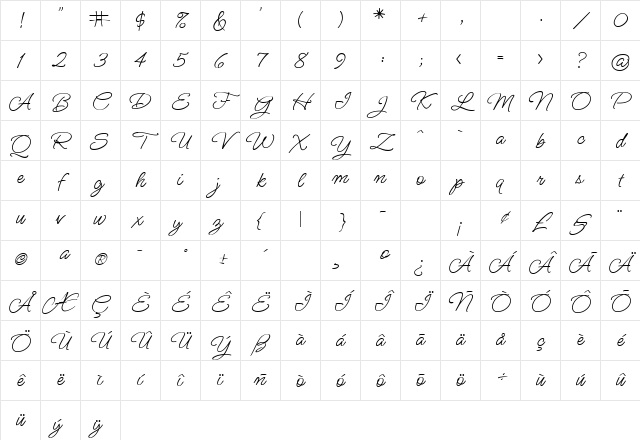
MsMadi ROB
Style: ROB
Complete MsMadi ROB glyph index. Displaying only characters natively supported by MsMadi ROB font.
Design Context for MsMadi
MsMadi is a composed and adaptable typeface that performs quietly and consistently across a wide range of design contexts.